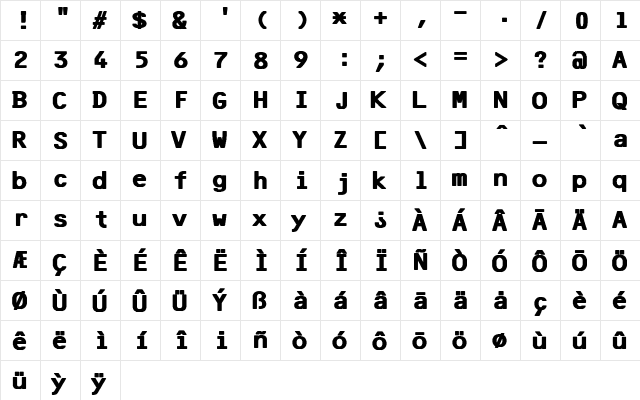
F25 Bank Printer Bold
| Foundry | Volker Busse, Berlin |
| Designer | Volker Busse, Berlin |
Design Context for F25 Bank Printer Typeface
F25 Bank Printer offers clean, dependable letterforms without strong stylistic allegiance, making it a practical choice for designers who need flexibility. The heavy weight commands attention and anchors typographic hierarchies.